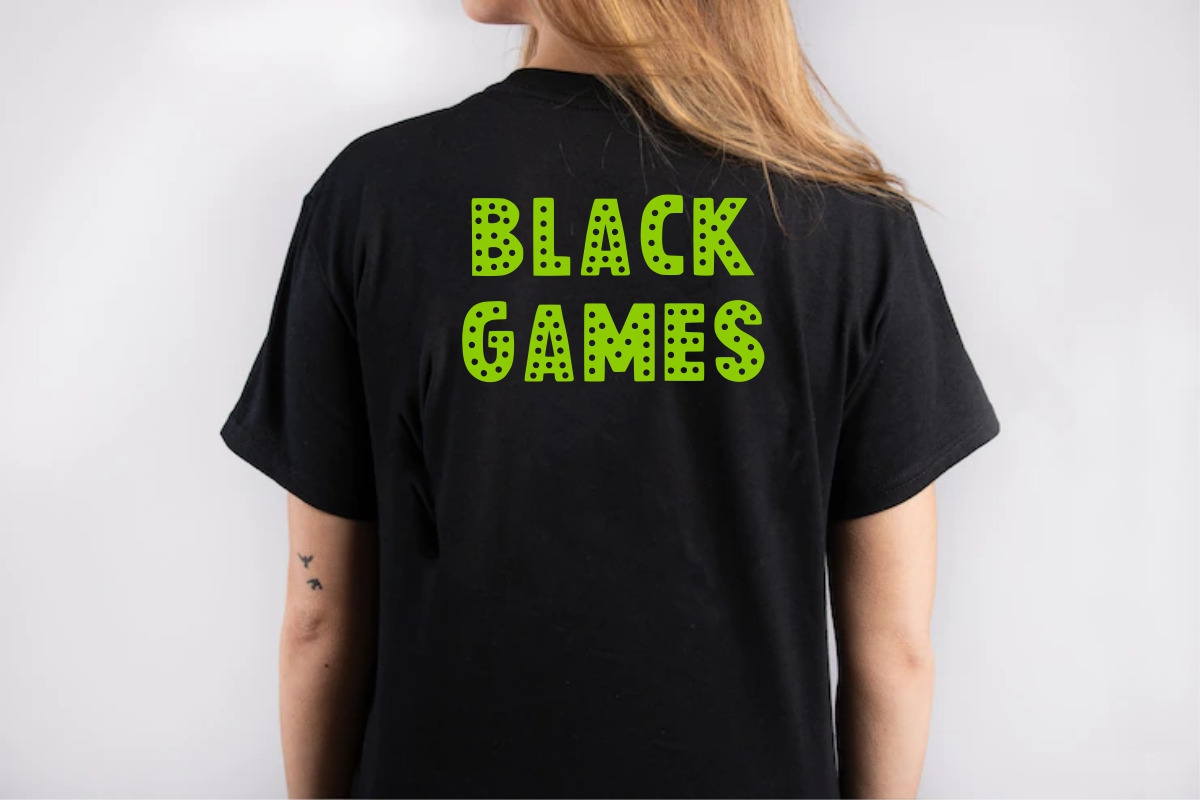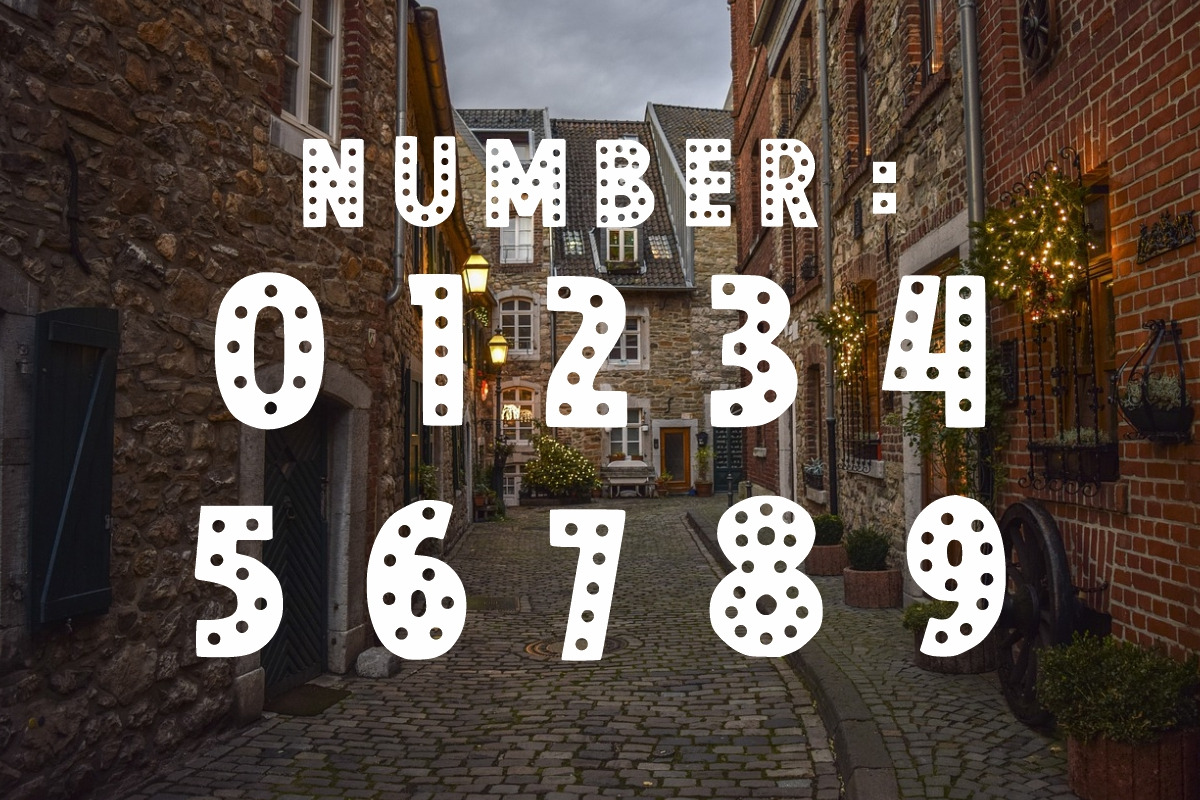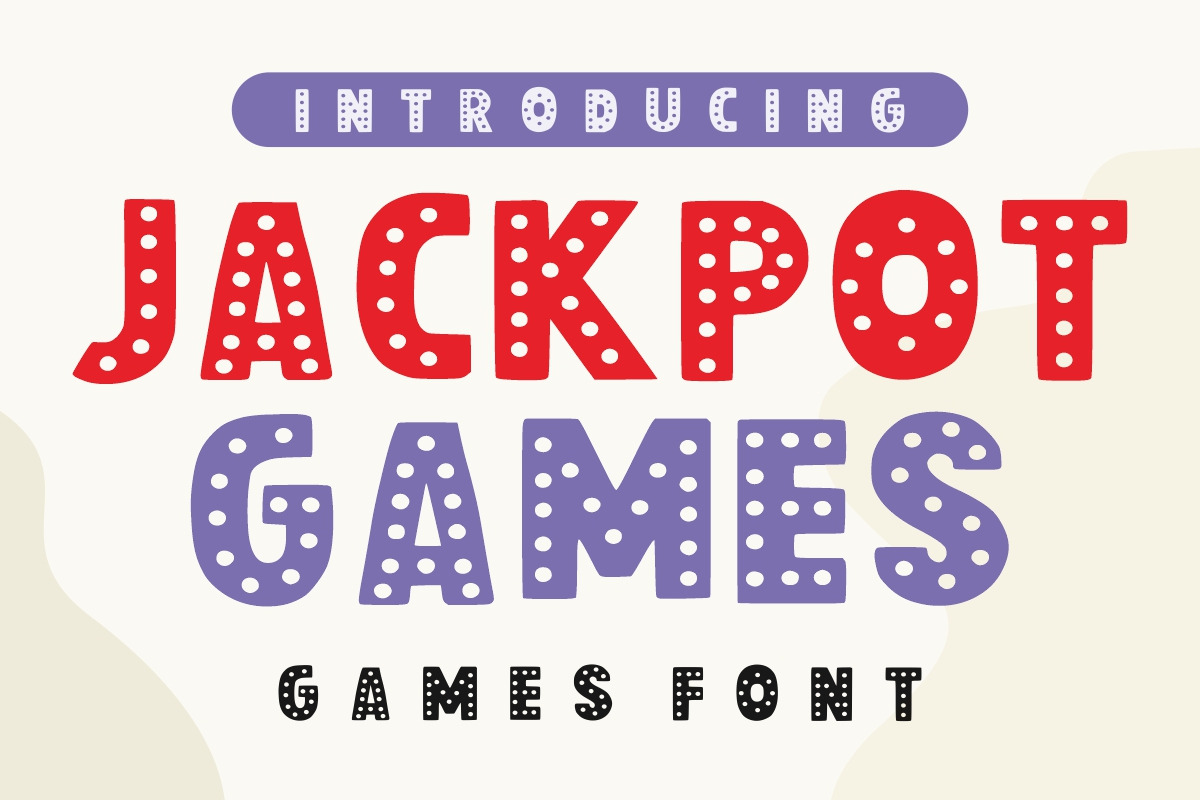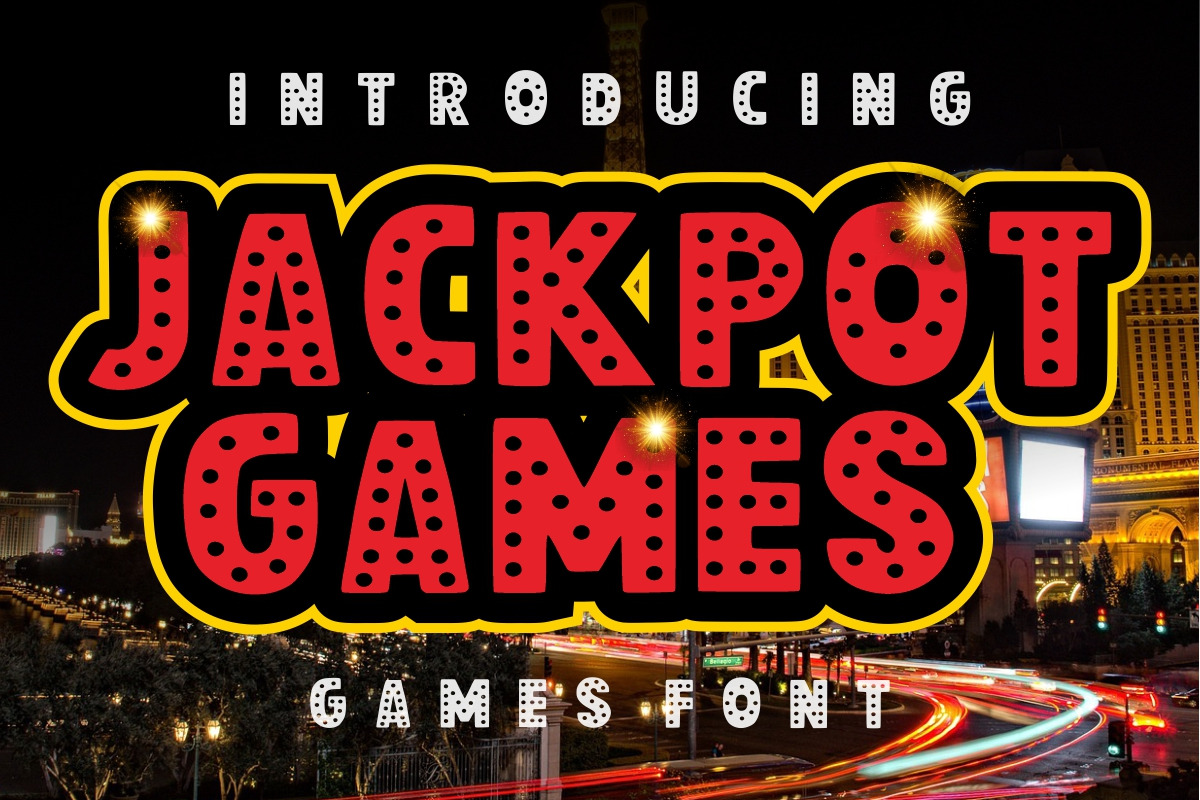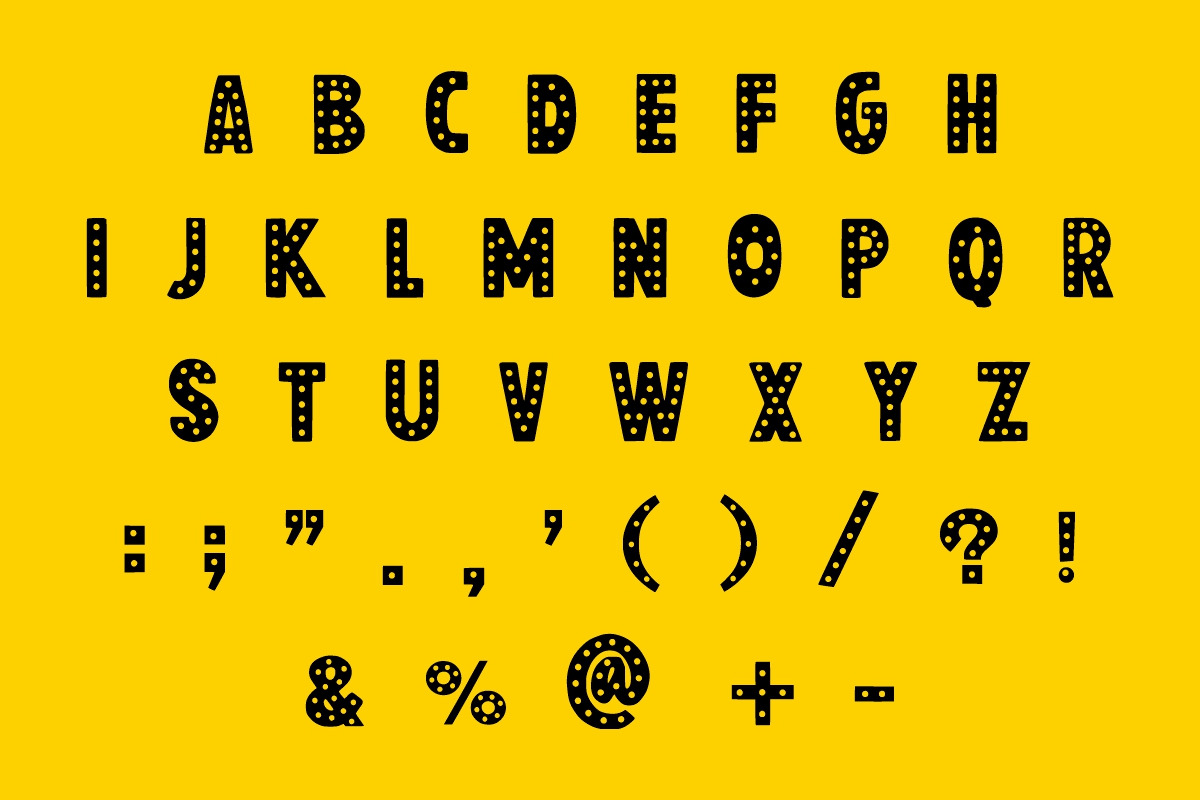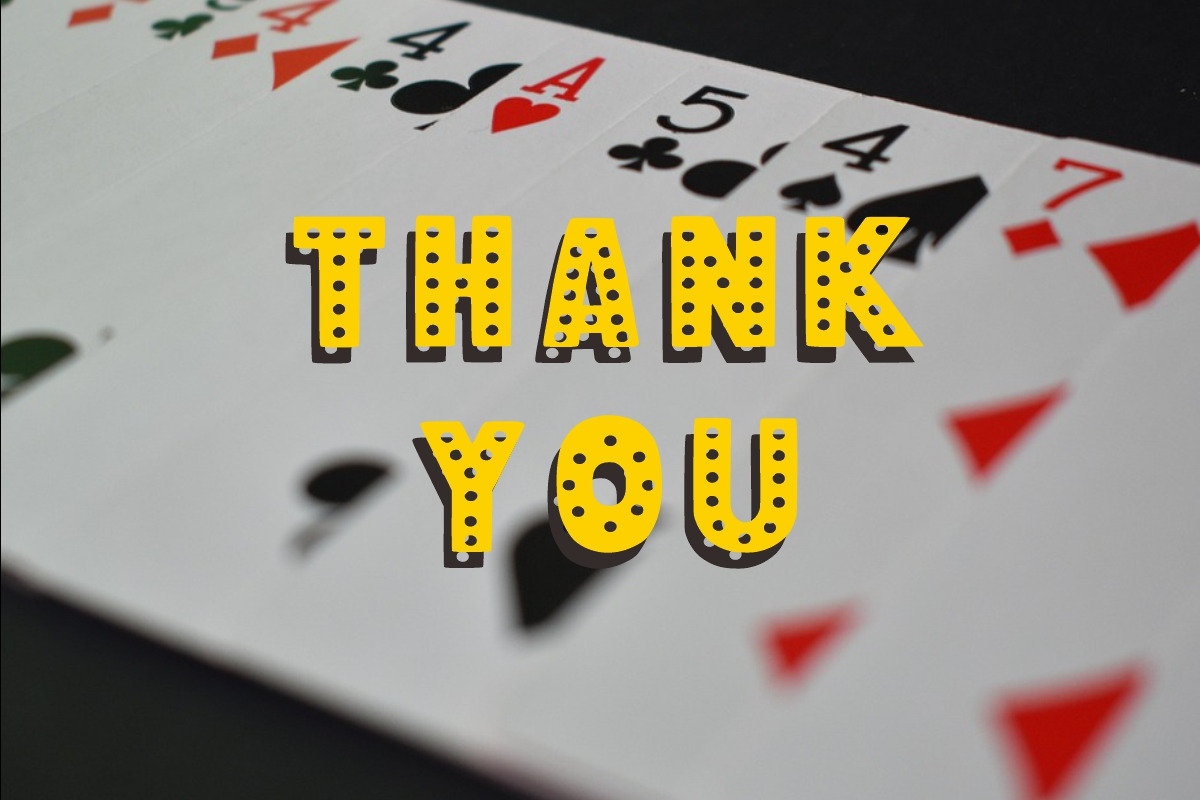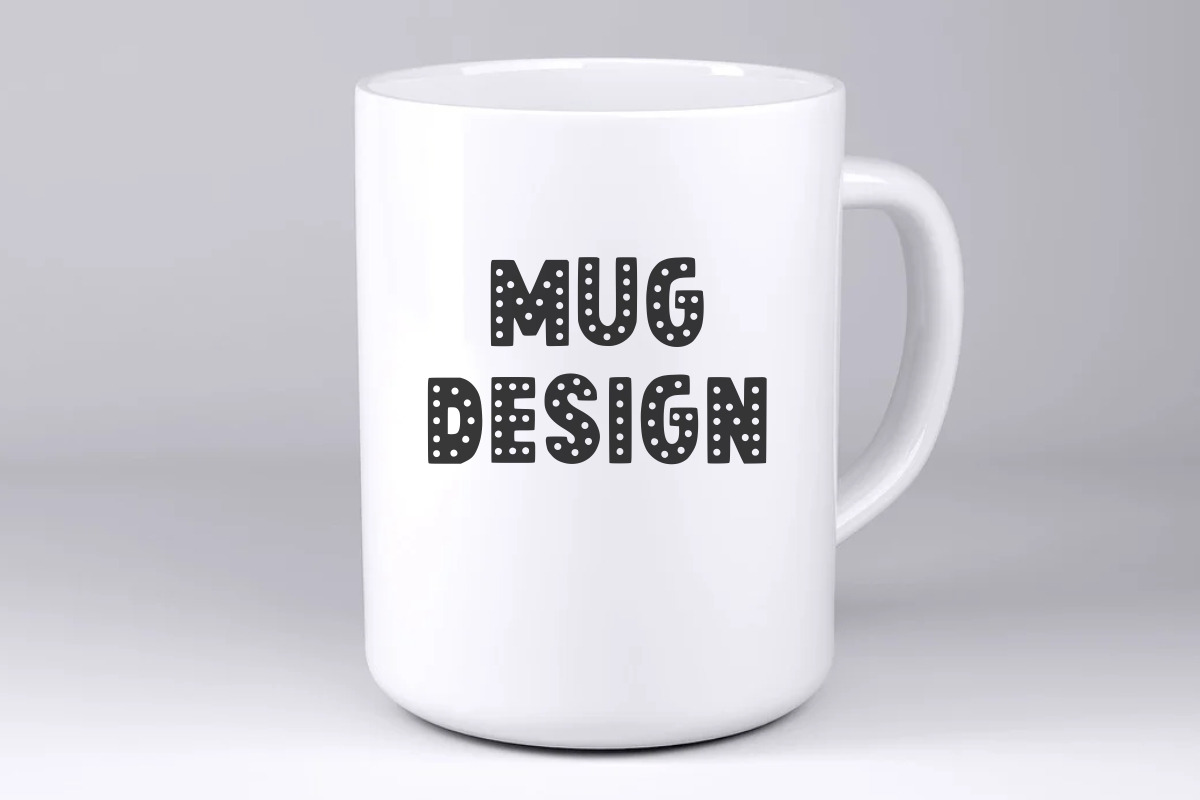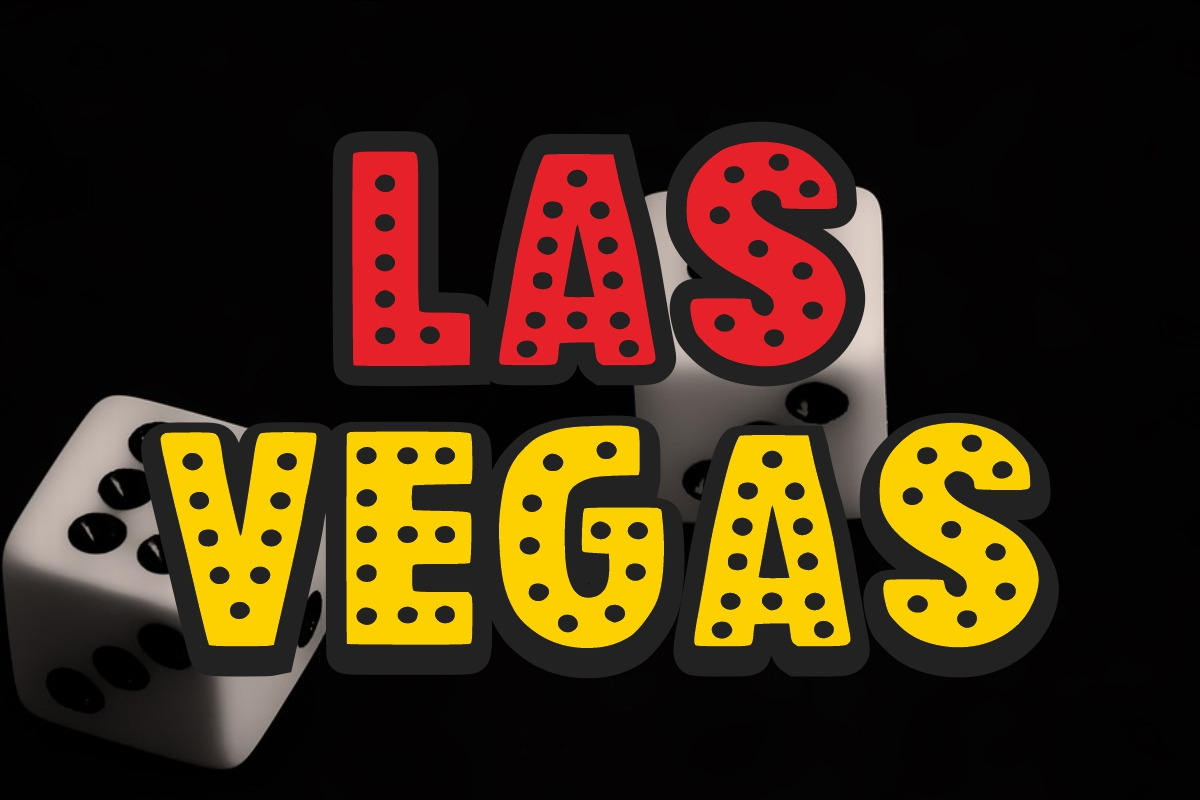
JACKPOT GAMES is a polka dot-decorated display font. This easy-to-read typeface conveys impeccable friendliness, and it is perfect for games. Whether you’re using it for crafts, digital design, presentations, or greeting cards, this font has the potential to become your favorite go-to font, no matter the occasion! | Jackpot Games - Dot Font | Infinity art Studio